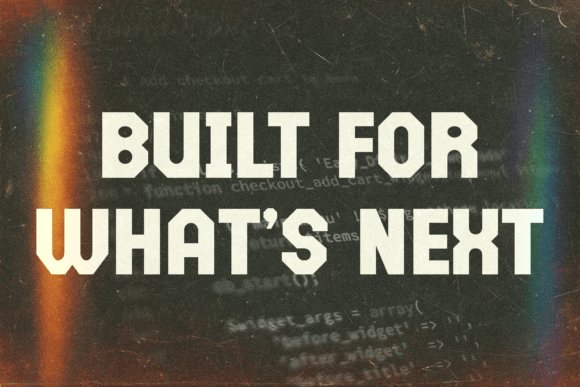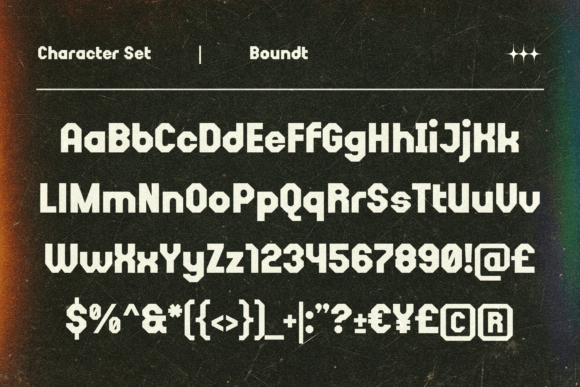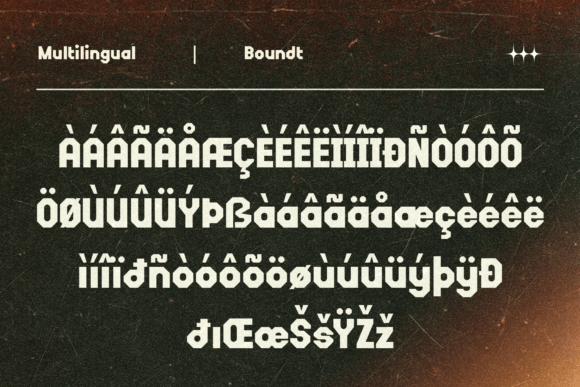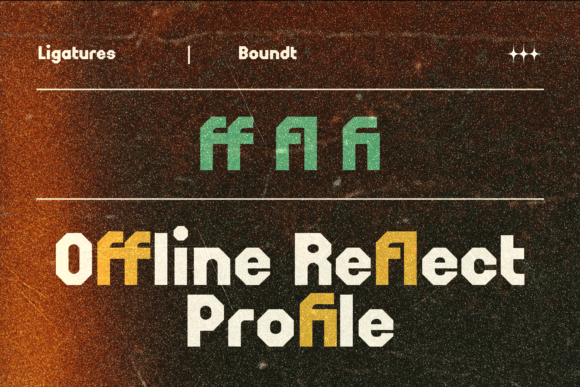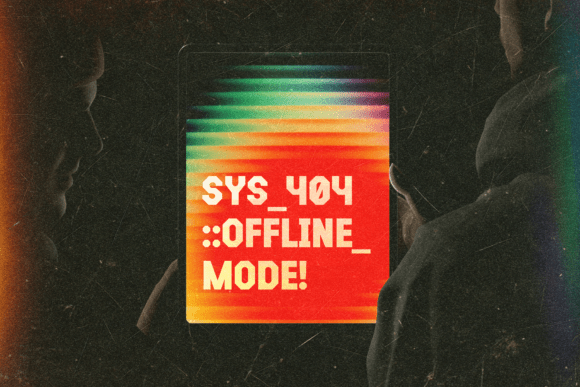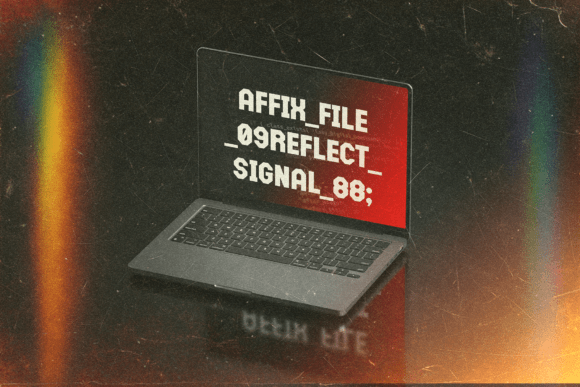
Designing for the Future: The Power of Boundt Font
You’ve stared at your screen for hours, the cursor blinking impatiently as you struggle to find the perfect font to elevate your design. Suddenly, a burst of inspiration hits – a futuristic concept, a sleek sports logo, or a cutting-edge tech magazine cover. This is the moment when the Boundt font comes to life, a geometric powerhouse designed to propel your designs into a new dimension.
With its heavy, wide-set structure and sharp angles, the Boundt font is the ultimate choice for creating a sense of speed and stability. Whether you’re designing for gaming titles, aerospace branding, or high-performance sports apparel, this font delivers a professional, futuristic edge that’s both visually striking and commandingly bold. The Boundt font is a valuable asset for designers, offering a unique blend of precision and impact that’s sure to elevate your designs to new heights.
Boundt Font Key Features
- Font Family: Boundt is a sans-serif font family.
- Unique Characteristics: Boundt features a modern and clean design, with a focus on legibility and readability.
Designer Review: Boundt Font
Overall, I’m quite impressed with the Boundt Font. ✨ Its unique blend of modern and vintage elements gives it a distinctive look that’s perfect for designs that need a touch of personality.
- ✨ Highly legible, making it perfect for body text and lengthy passages
- ✨ Versatile, suitable for a wide range of design styles, from minimalist to vintage-inspired
- ✨ Supports multiple languages, including Cyrillic and Greek scripts
- ⚠️ Limited character set, which may be a problem for designers working on projects that require a wide range of special characters
- ⚠️ Some characters may not be fully optimized for digital use, resulting in poor display on certain devices
Overall, I’d say the Boundt Font is a solid choice for designers who want a unique, modern font with a vintage twist. While it may not be perfect, its strengths far outweigh its limitations, making it a great addition to any design toolbox.
For best results, use the Bount Font in headings and titles. It’s particularly effective in creative and modern designs. Experiment with different font sizes and styles to create visual interest.